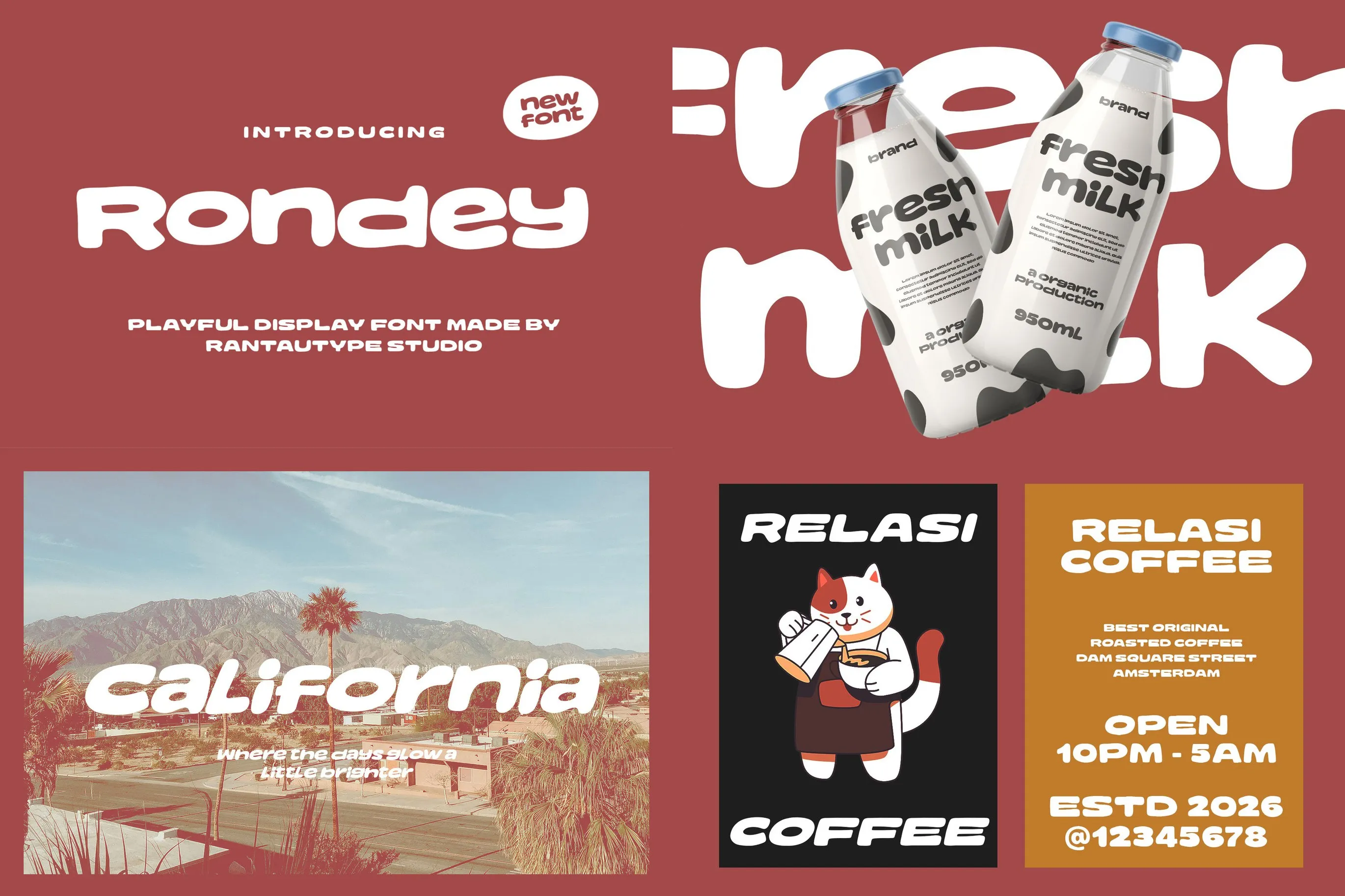
Rondey Playful Rounded Font
Madlost is a retro-inspired display font. Crafted with a fairly thick weight and relatively low contrast, this font delivers a strong, confident appearance while maintaining a smooth, cohesive look. Madlost captures the essence of classic retro lettering and reimagines it for modern creative use, making it a perfect choice for designers who want nostalgic style with contemporary versatility. In addition, enjoy the features here.